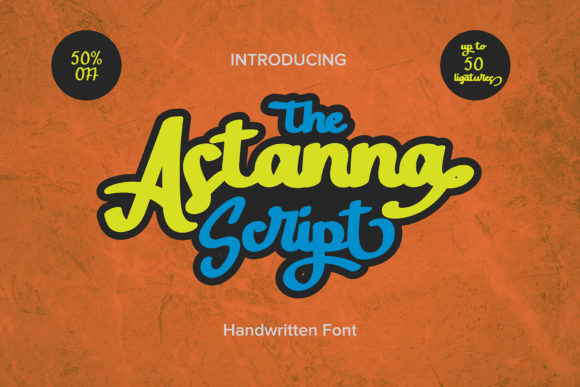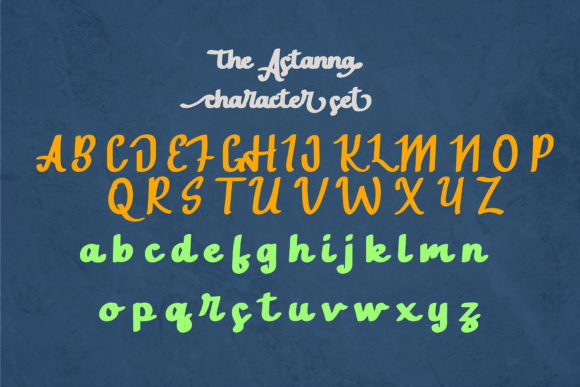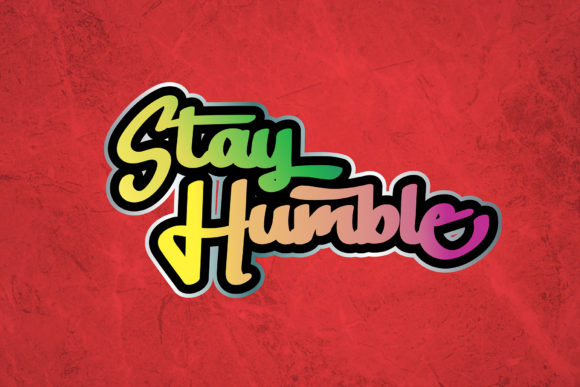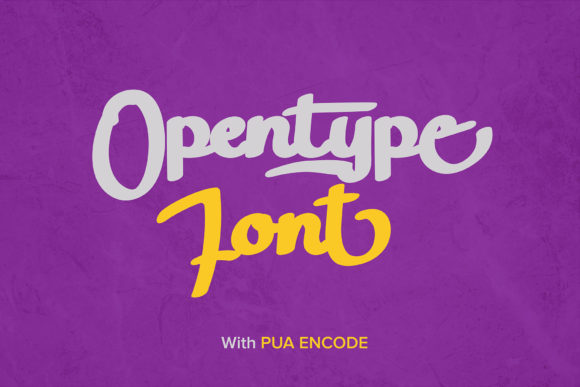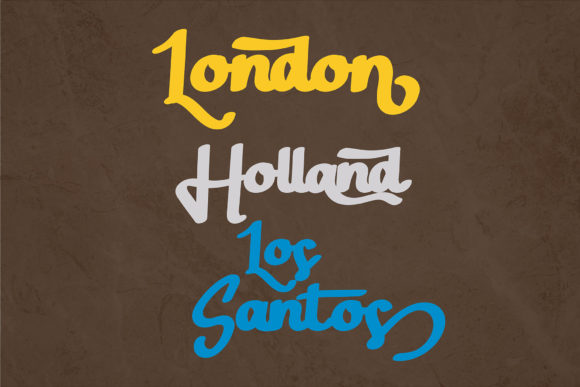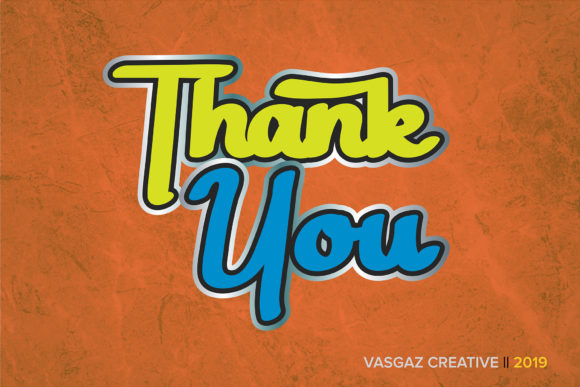
The Astana Script Font
About The Astana Script Font
The Astana is a fun script font. It has bold letters with a playful style which will make any design stand out!